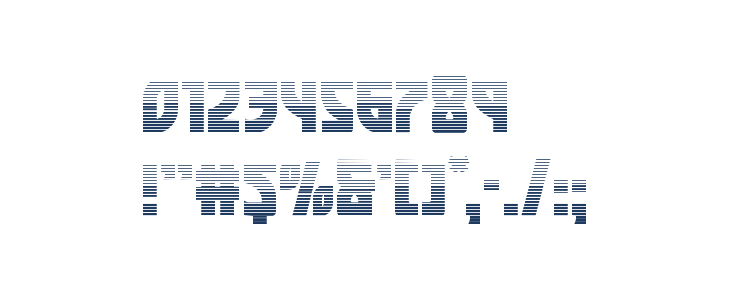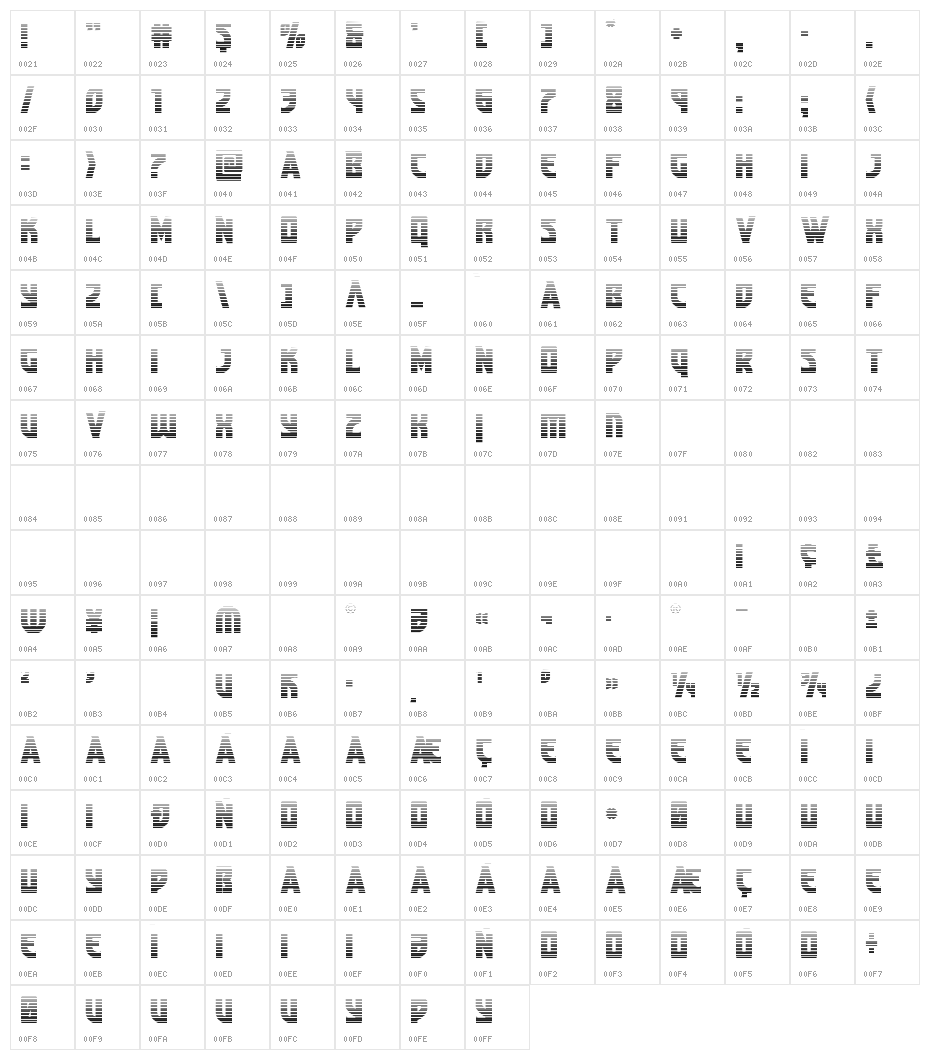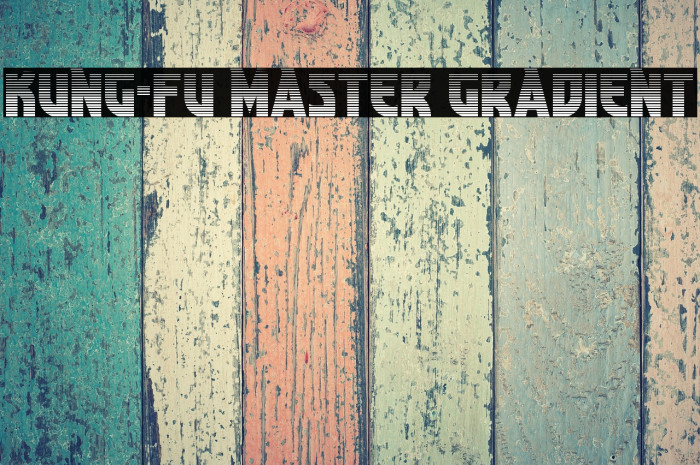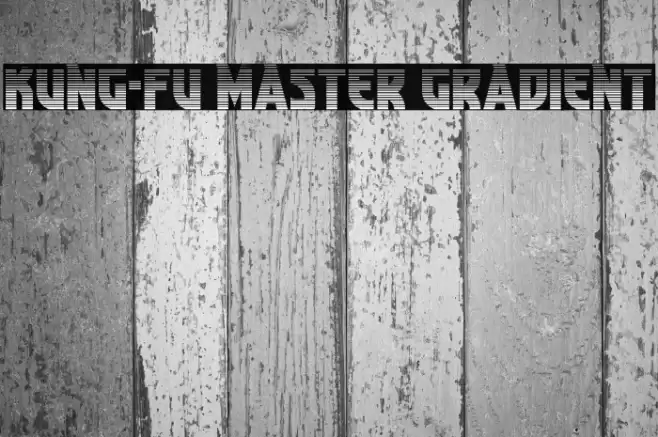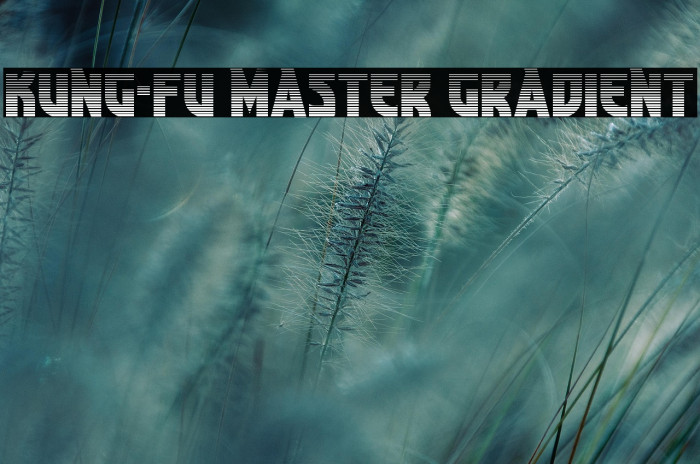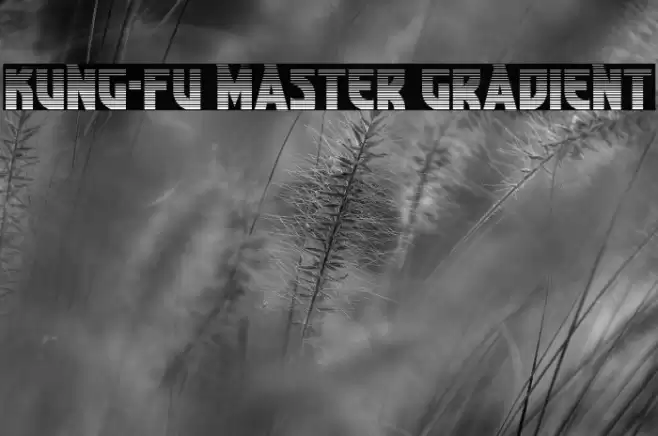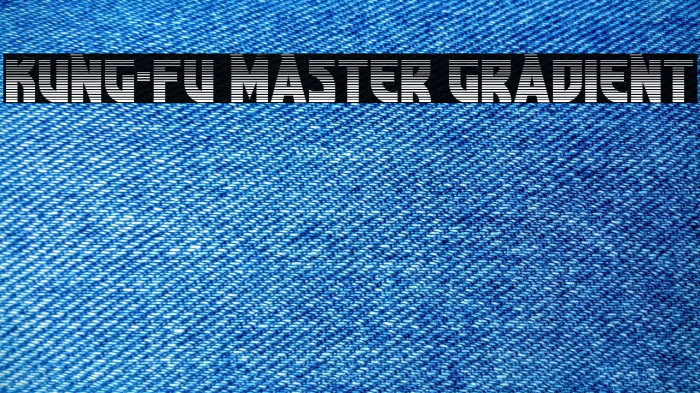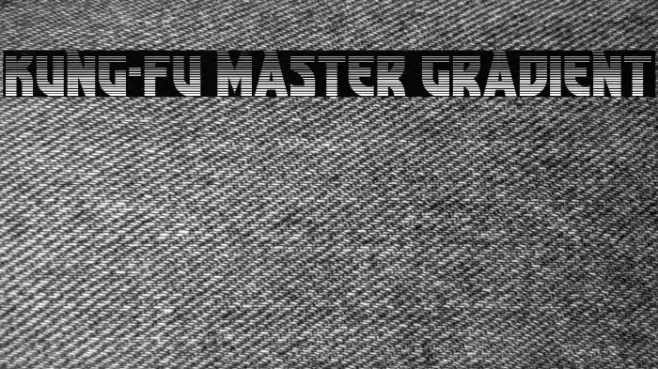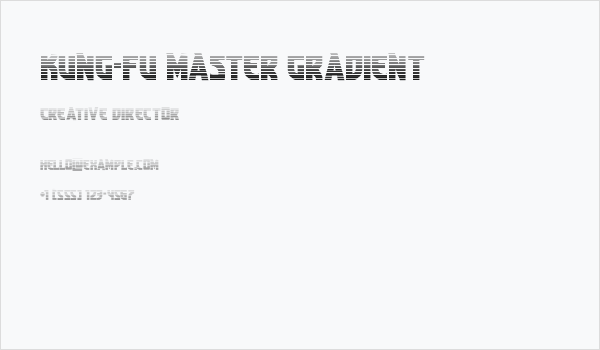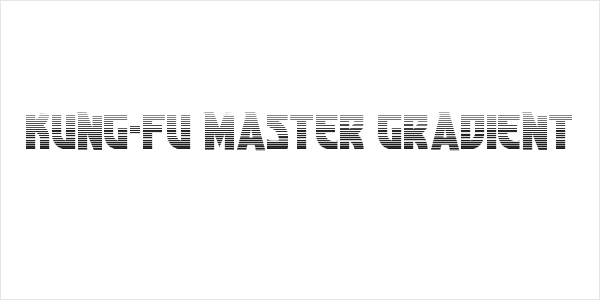
Kung-Fu Master Gradient Font
Kung-Fu Master Gradient Description
This font features a bold, dynamic design with a distinct gradient effect created by horizontal lines. The characters are blocky and geometric, giving a futuristic and digital feel. The uppercase and lowercase letters maintain a consistent style, with sharp angles and a sense of movement. Numbers and special characters follow the same aesthetic, ensuring uniformity across all glyphs. The gradient effect adds depth and visual interest, making it ideal for attention-grabbing designs.